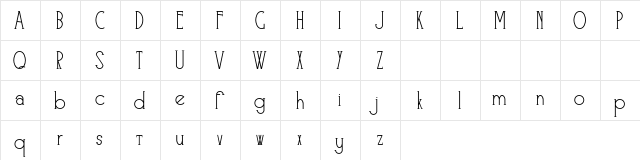
Skyliner Regular
| Foundry | Skyhaven |
| Designer | =^_^= |
Design Context for Skyliner Typeface
Skyliner offers clean, dependable letterforms without strong stylistic allegiance, making it a practical choice for designers who need flexibility.